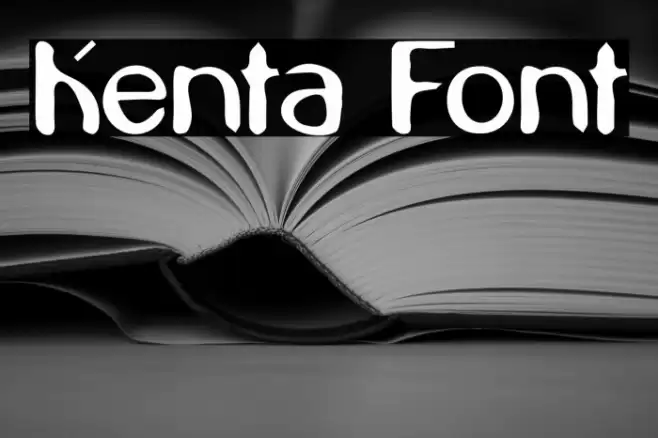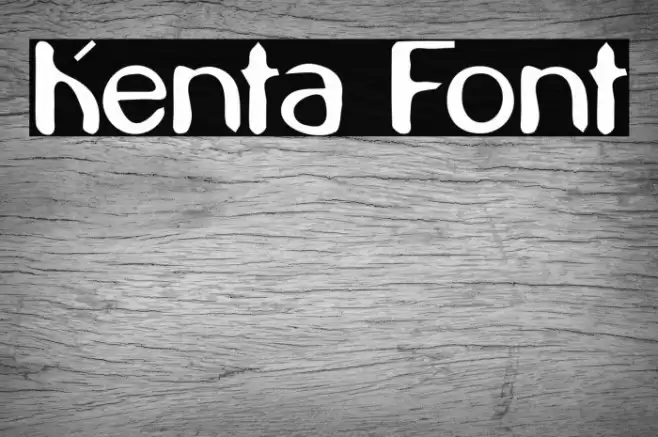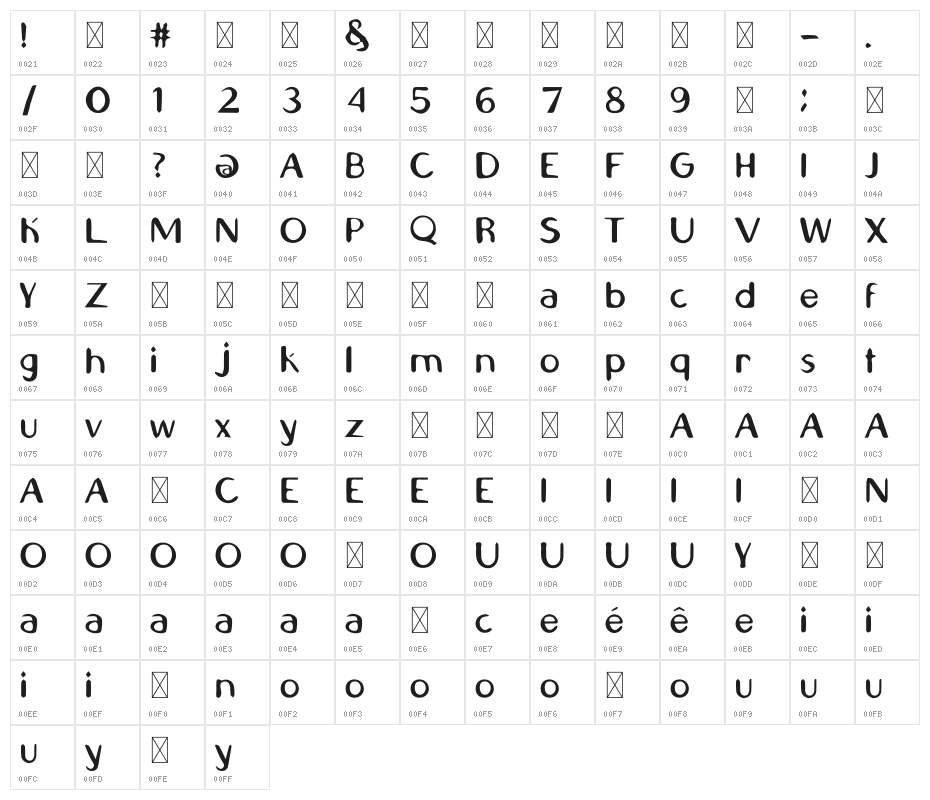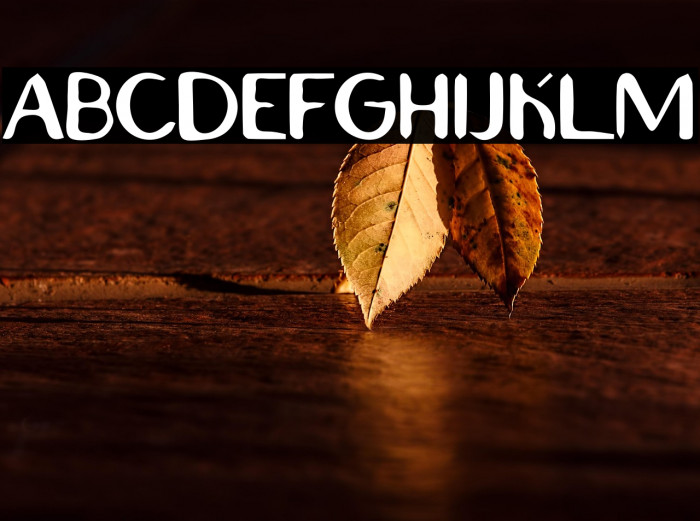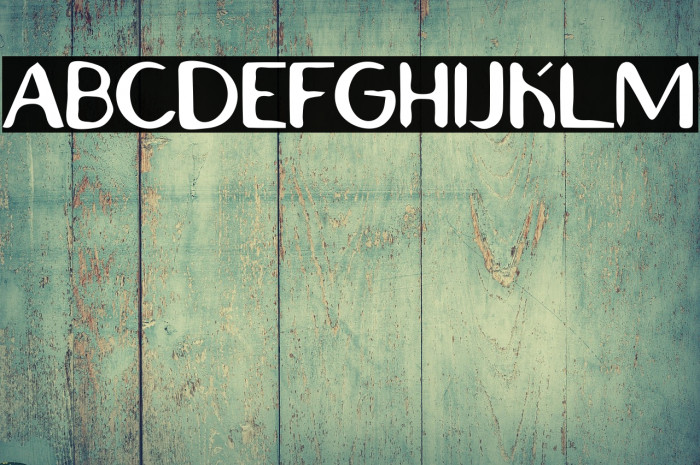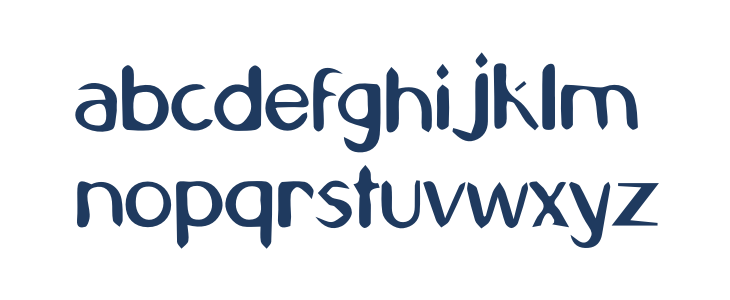
Kenta Font
Kenta Description
This font features a unique and artistic style with a playful and slightly irregular form. The characters have a hand-drawn appearance, giving them a whimsical and creative feel. The strokes are bold and varied, with some letters having thicker lines and others more slender, creating a dynamic visual contrast. The overall design is both modern and artistic, making it suitable for projects that require a touch of creativity and individuality. The font includes a full set of uppercase and lowercase letters, numbers, and a selection of special characters, all maintaining the same distinctive style.
A playful, hand-drawn font with bold, irregular strokes and artistic flair from Regular fonts.
- Proposed Projects: Ideal for creative projects such as children's books, artistic posters, branding for creative businesses, and unique packaging designs.
- Overall Style: Artistic, Playful
- Use Case: Headlines, Logos, Creative projects